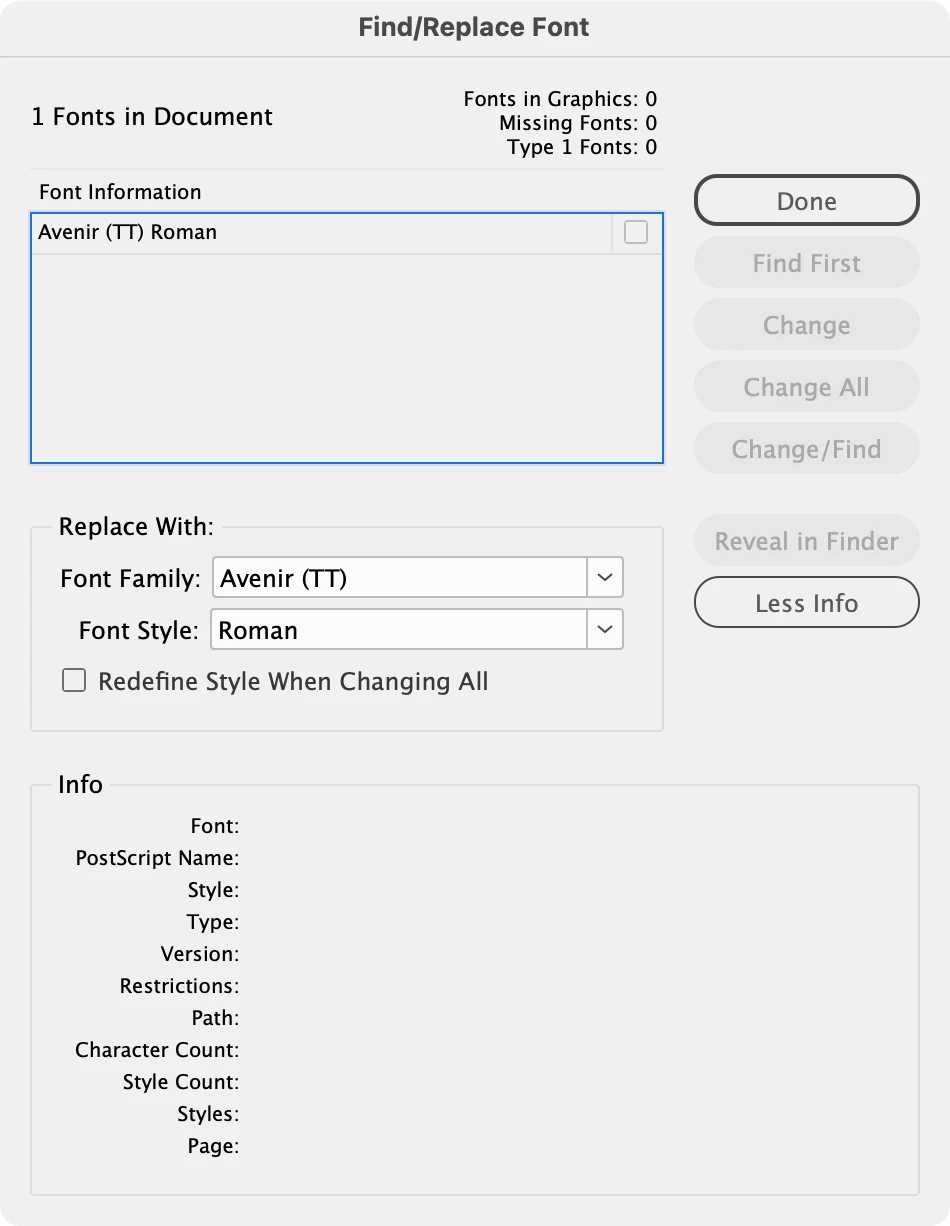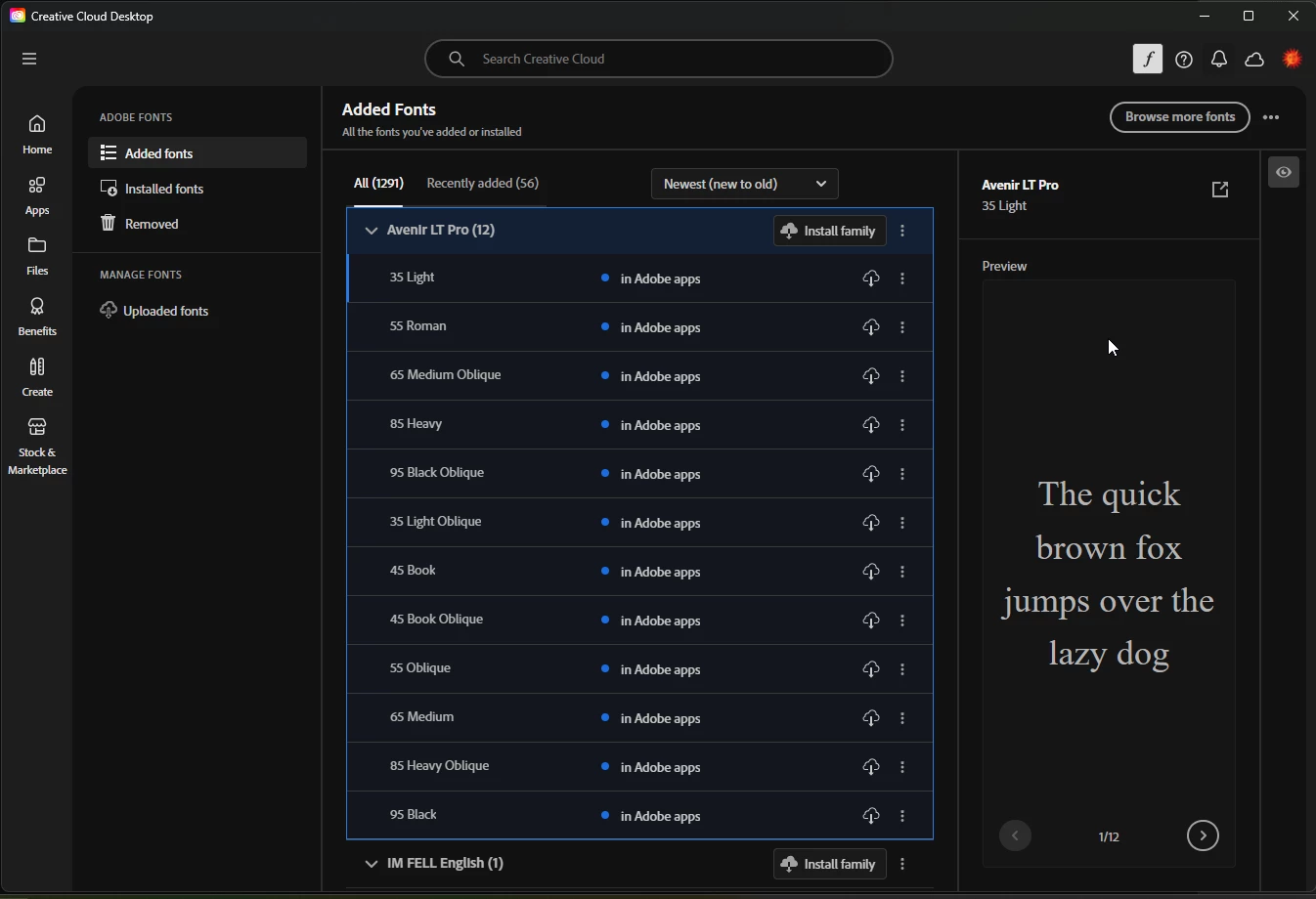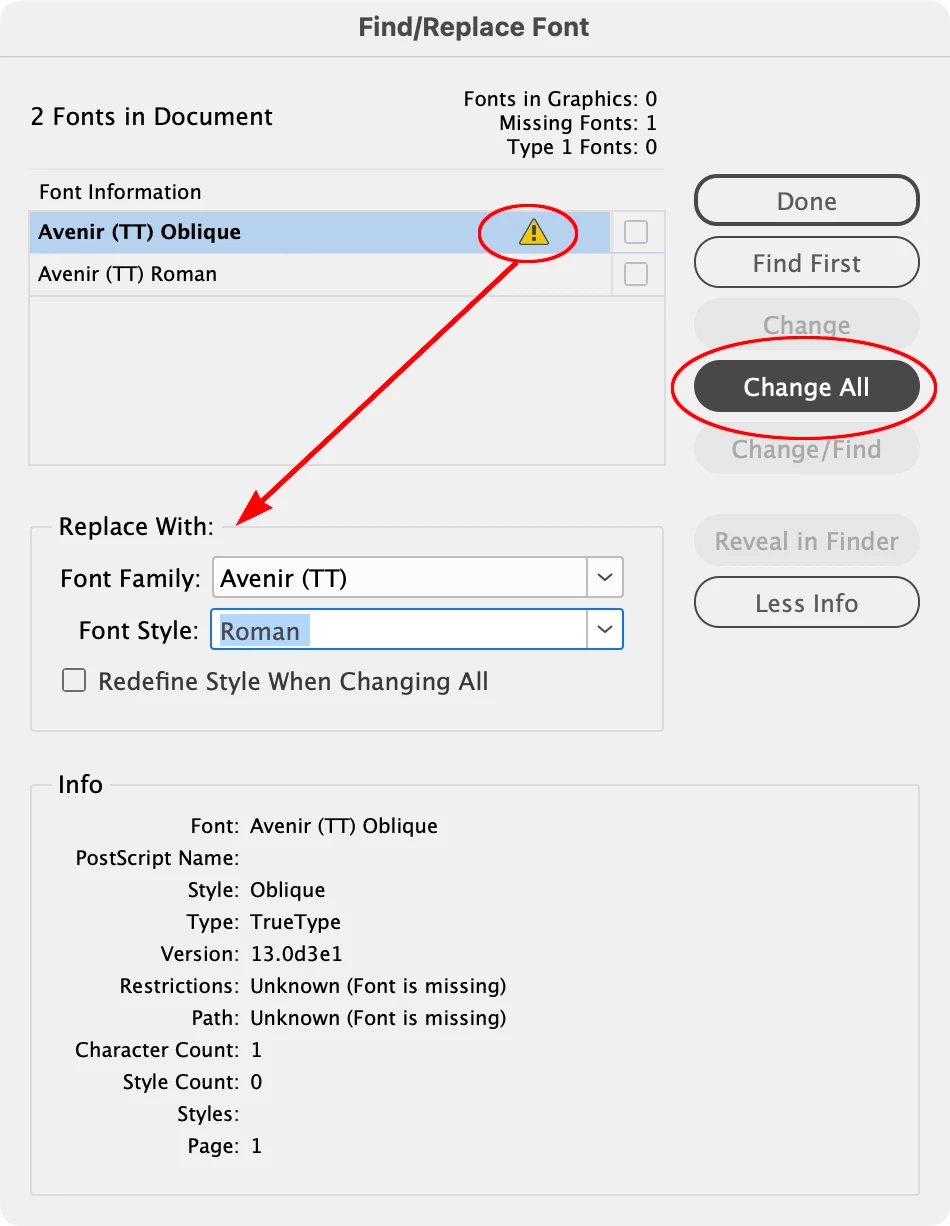
Missing font does not appear in the project
When I open it, it says there is a font missing - Avenir Oblique (I use Avenir Regular in the document).
I open [Replace fonts]
When I click [Find First], nothing happens.
When I click [More info], it shows:
Restrictions: Unknown (font is missing)
Path: Unknown (font is missing)
Character Count: 0
Style count: 0
Pages: none.
So it implies that the font is not used … so how comes it’s “missing”? I can’t, visually, find where it is so I’m stumped and I want to get rid of this annoying pop-up … but it might mean something.
​@Kusumas, I had a bit more time to look into this. And ​@Dave Creamer of IDEAS gives you helpful ways to search for the characters. I add this to give a bit more explanation:
Avenir Oblique is likely a synthesized italic. You may have applied the I (italic) button to Avenir text instead of using a character style to apply italics. Check all italicized characters. Find/Replace does nothing because the reference is buried in a style override, not a direct font assignment. You might also use a more robust preflight profile to see what it uncovers. Just check all the boxes (except the ignore overrides) under the TEXT heading. Let us know how it goes!
Where did you obtain your Avenir? Did this file originally exist as a Mac file?
I can tell you that Avenir Oblique is definitely not a synthesized font. It exists.
That being said, Avenir (Truetype) is part of a truetype collection font that is part of the Mac’s System fonts. TrueType collection fonts do not translate properly to Windows, and frequently have issues because of the way Windows parses the individual styles (which is: “not well”).
Regardless, this Avenir (TT) is the same Linotype outlines as the original Type 1 versions that Adobe used to license. Apple dropped Type 1 and replaced it with this TrueType version. Meanwhile, Adobe’s original Type 1 versions were rereleased/renamed as Avenir LT Std in their OpenType Font Folio, but were for all intents and purposes the same font as the Type 1 version. Linotype since expanded the set to vastly expanded Avenir LT Pro, but since Adobe had dropped licensing these, the only “legal” place to get them was through Linotype/Monotype.
I suggest you load those and replace all of the Avenir in your project with those. You will have a much better time going forward. As I said, the outlines and metrics are for the most part identical, but there will have been slight tweaks in the new Pro set, so you may have a bit of reflow to deal with.
​@Kusumas, I had a bit more time to look into this. And ​@Dave Creamer of IDEAS gives you helpful ways to search for the characters. I add this to give a bit more explanation:
Avenir Oblique is likely a synthesized italic. You may have applied the I (italic) button to Avenir text instead of using a character style to apply italics. Check all italicized characters. Find/Replace does nothing because the reference is buried in a style override, not a direct font assignment. You might also use a more robust preflight profile to see what it uncovers. Just check all the boxes (except the ignore overrides) under the TEXT heading. Let us know how it goes!
So, while this answer has sent me in the right direction, I can’t face trying to fix that lot - this is volume 4 of a book and, if it has managed to print successfully for 3 previous volumes, it’ll have to be OK for another one! ;-)
But thank you for the response - it was the correct one, I’m simply too lazy/incompetent to fully act on it.
Keep it up, you’re the best!
​@Kusumas Hey! I wondered who marked my answer as the correct one. Thanks for the kind words!! I’m glad I gave you a direction to follow, at least for the future, if not for this document. I think it’s a good practice to apply a character style for italics and bold type instead of using Ctrl+I or Ctrl+B for this very reason. If the document prints successfully, most people ignore preflight text errors. As for me, I’m going to hunt down every error, lol. Until next, carry on!
For locked stories, check your Layers panel for any locked layers and objects. Be sure to look at the individual objects. Unlock them is necessary.
For conditional text, show the Conditional Text panel and see if any are hidden. Show them.
That’s a good call but, when I tried it, a message popped up saying “The selected font is applied to hidden conditional, or applied to text in a locked story, or is part of a composite font. Some instances of the font may not be found, or may not be changed”.